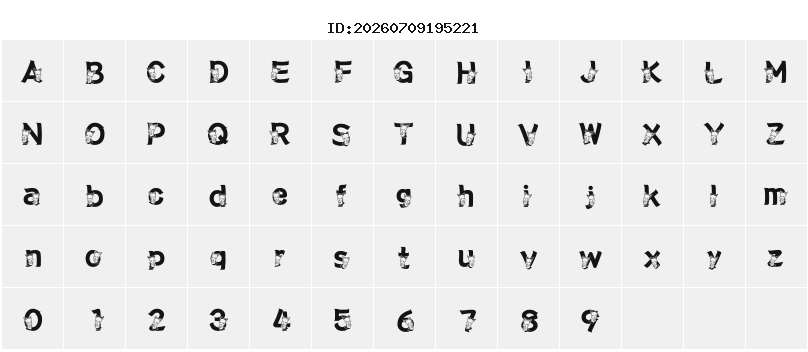
DFPJianDingMoJie-B5 Preview
• Font Name: DFPJianDingMoJie-B5
• Font ID: DFPJianDingMoJie-B5
• Full Font Name: DFPJianDingMoJie-B5
• Version: Version 3.00
• PostScript Name: DFJianDingMoJie-W9-WINP-BF
• Character Count: 18589
About DFPJianDingMoJie-B5.ttf
DFPJianDingMoJie-B5.ttf is a modern, elegant sans-serif font designed for ultimate readability and visual harmony. Perfect for branding, headlines, web design, and print materials.